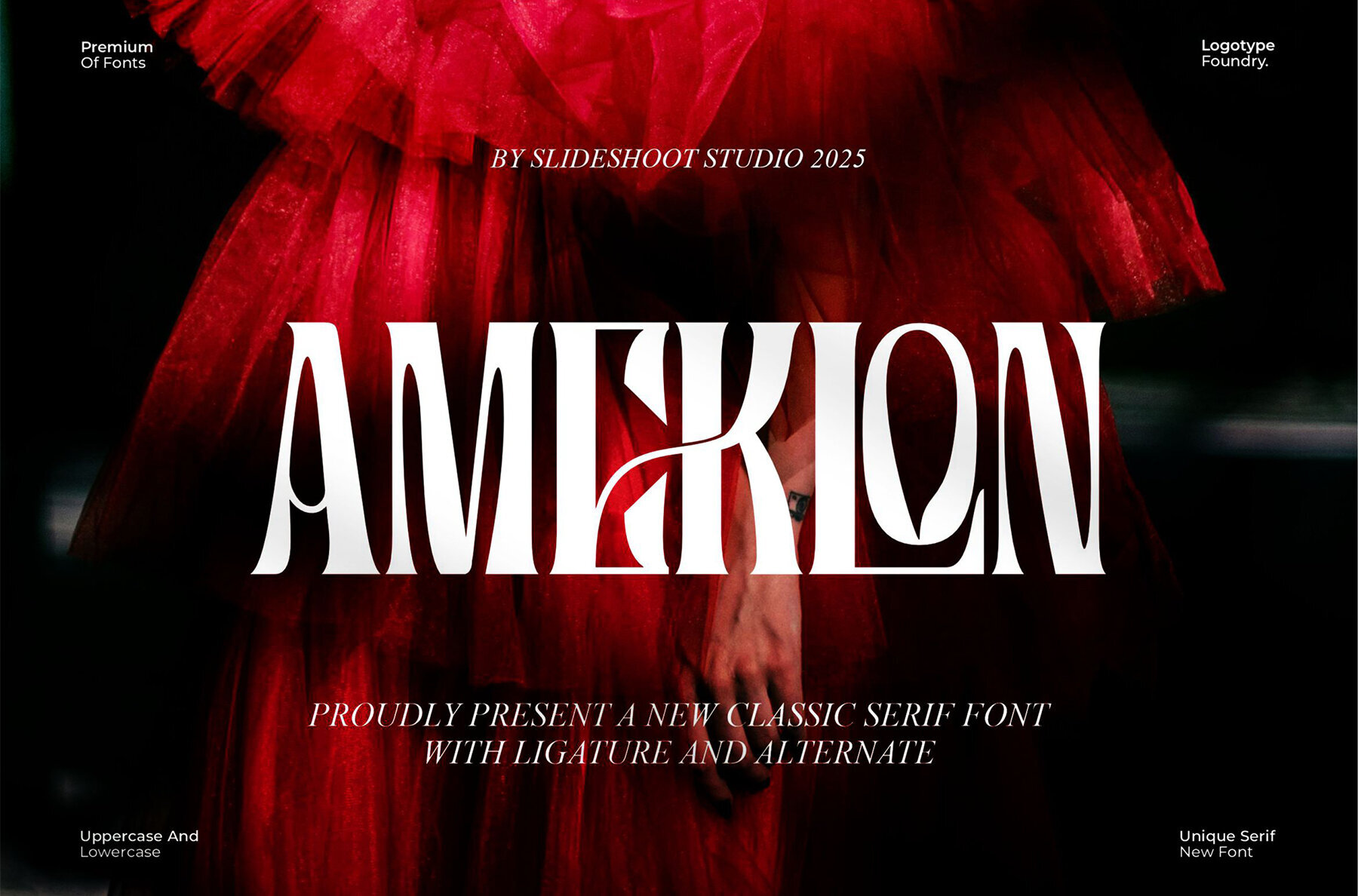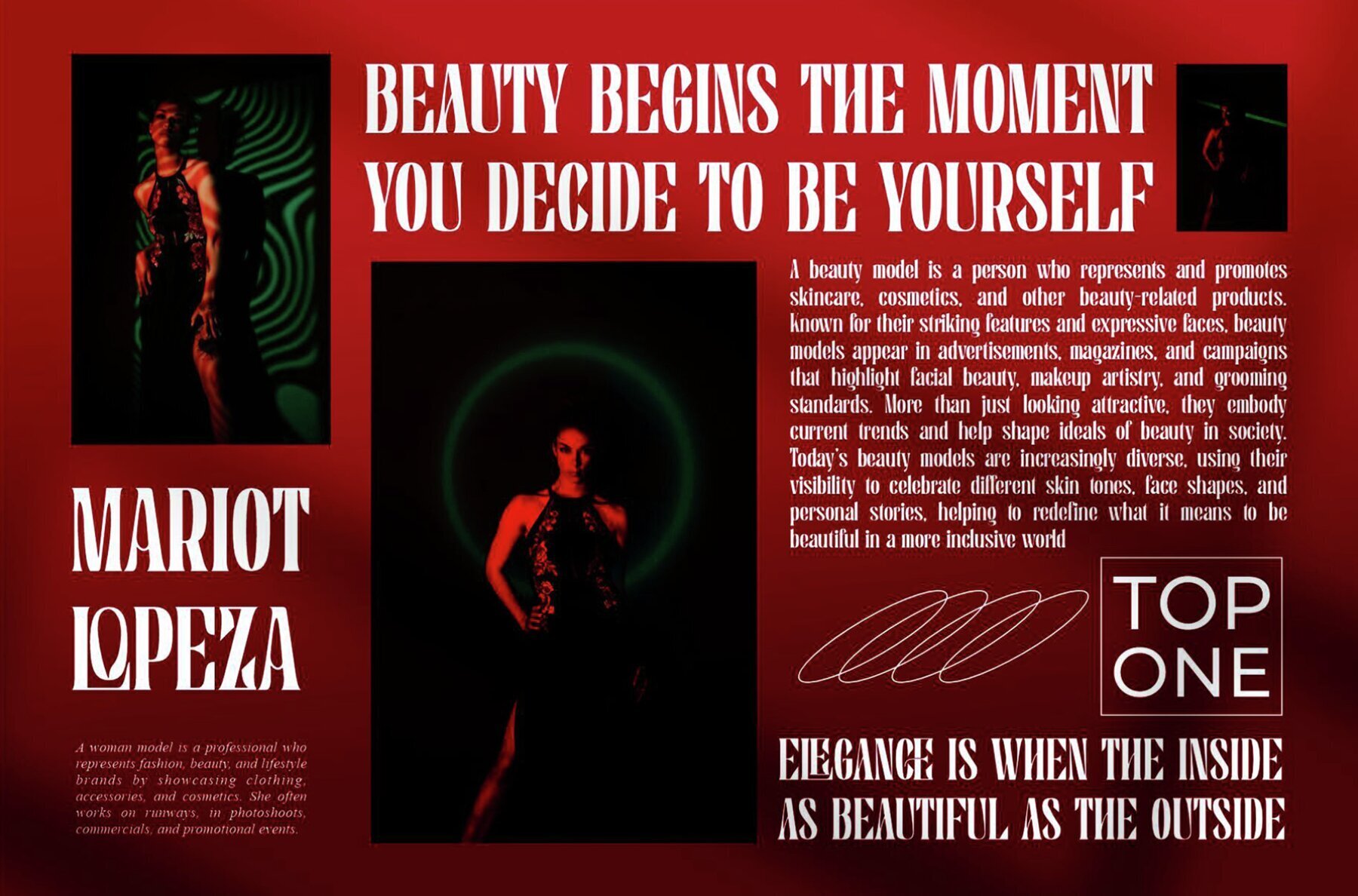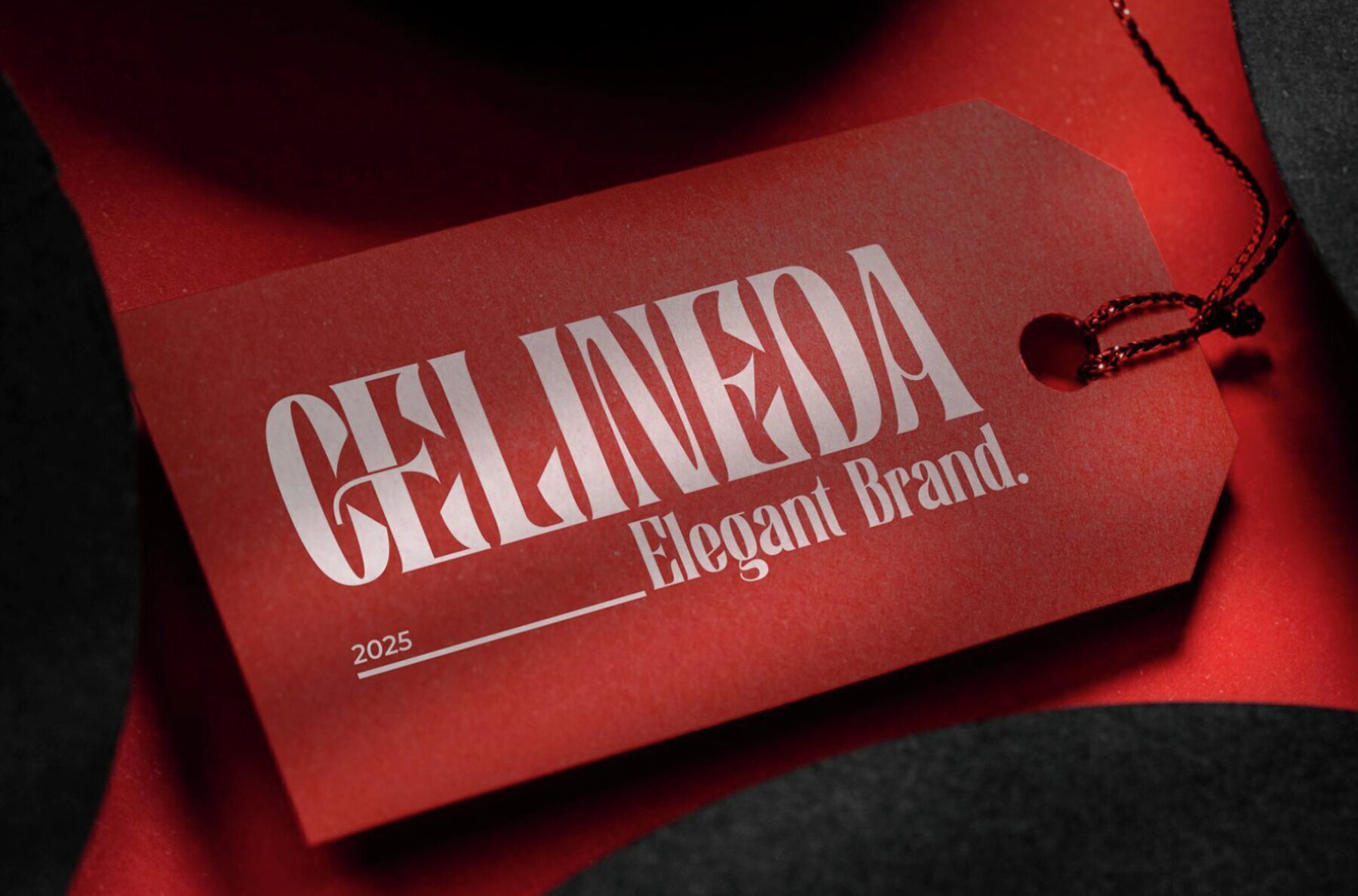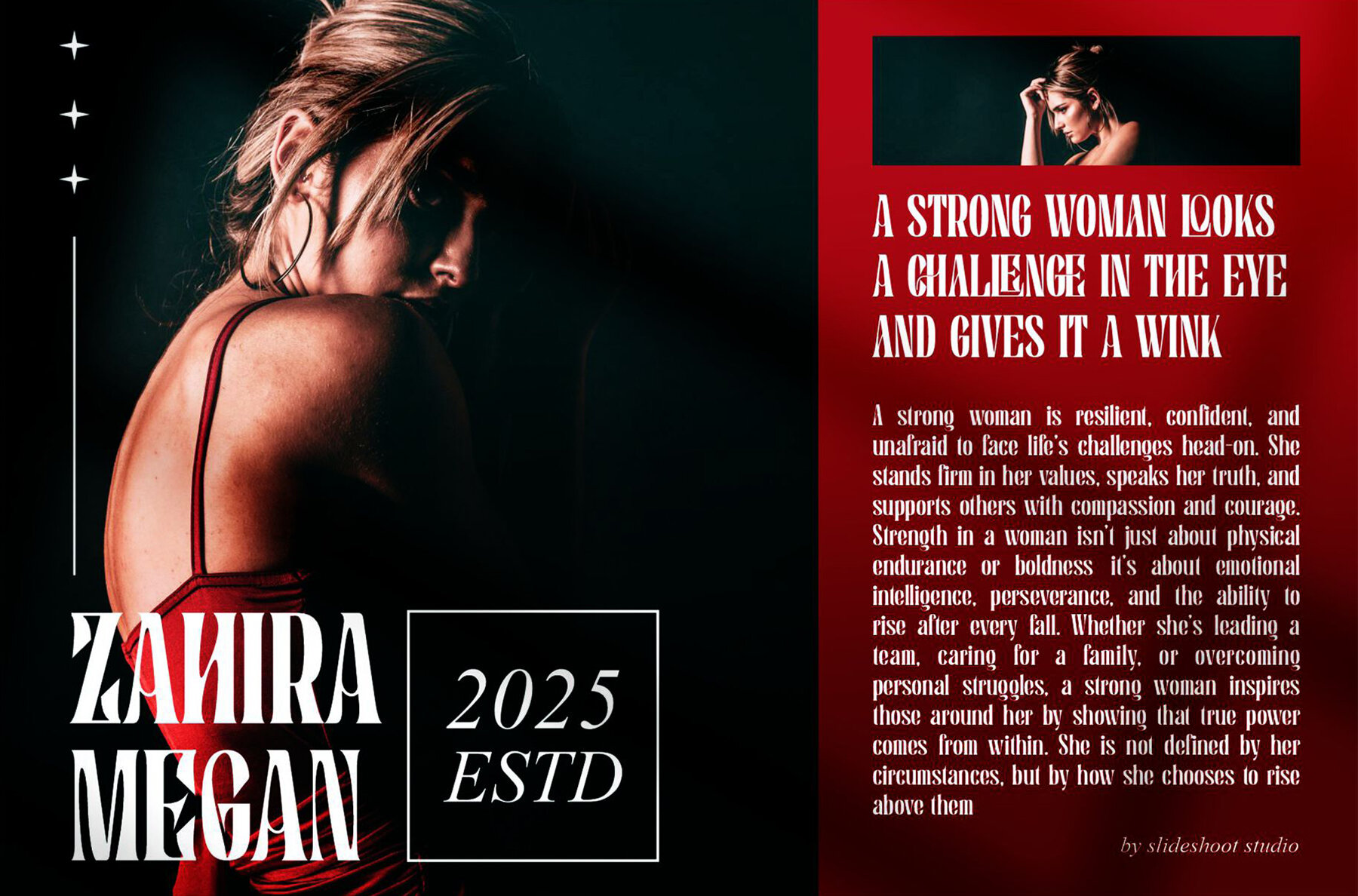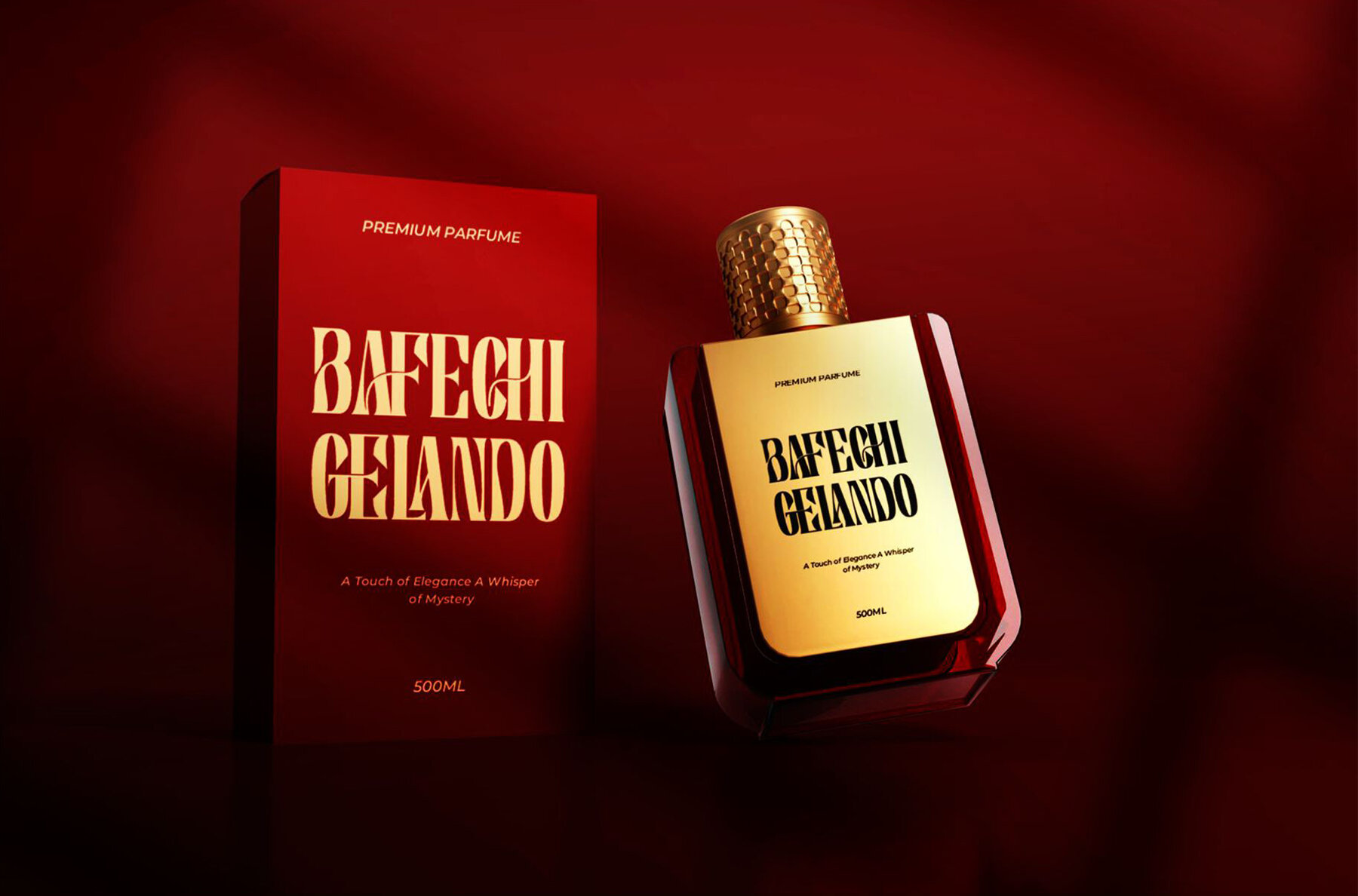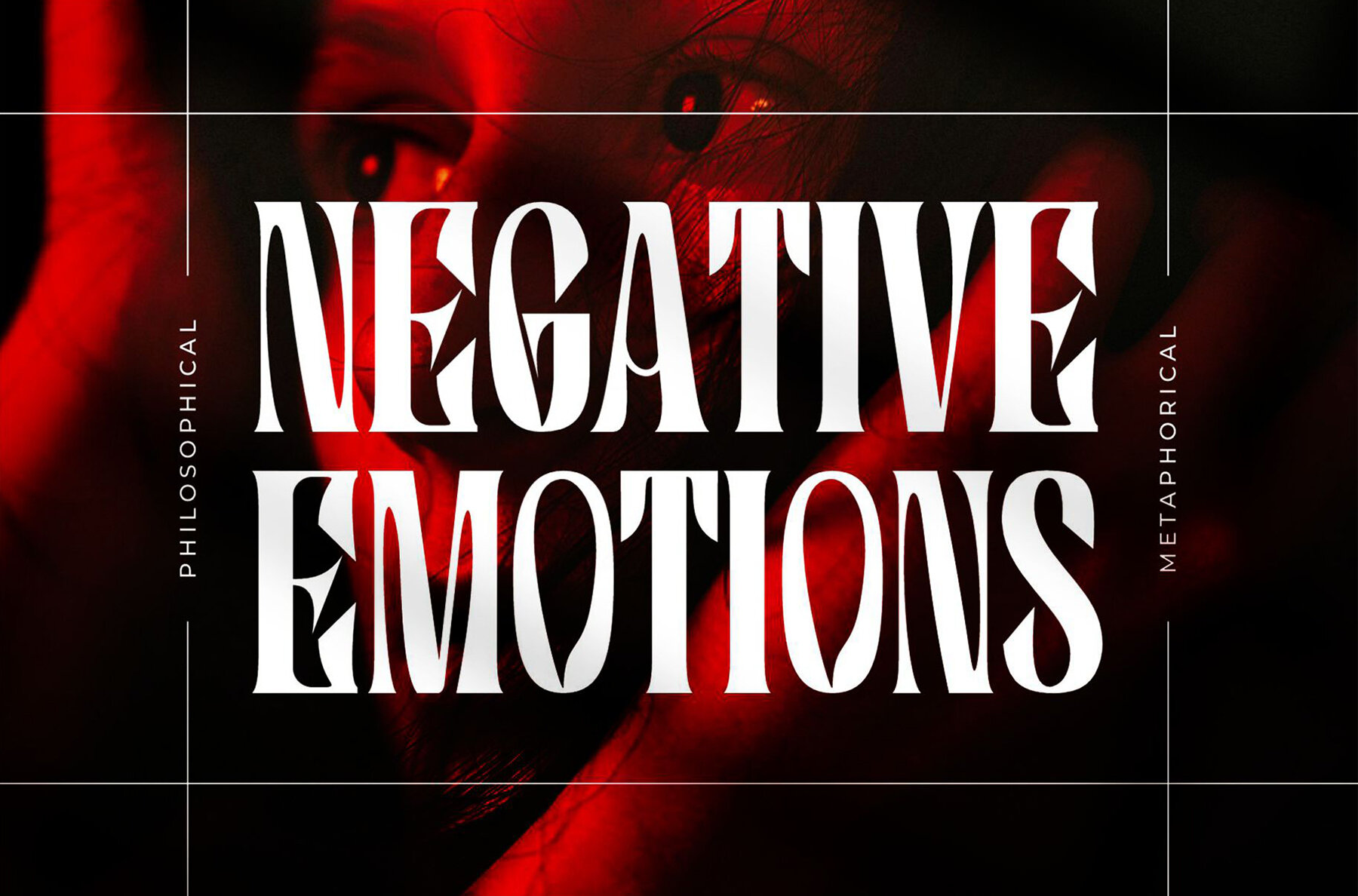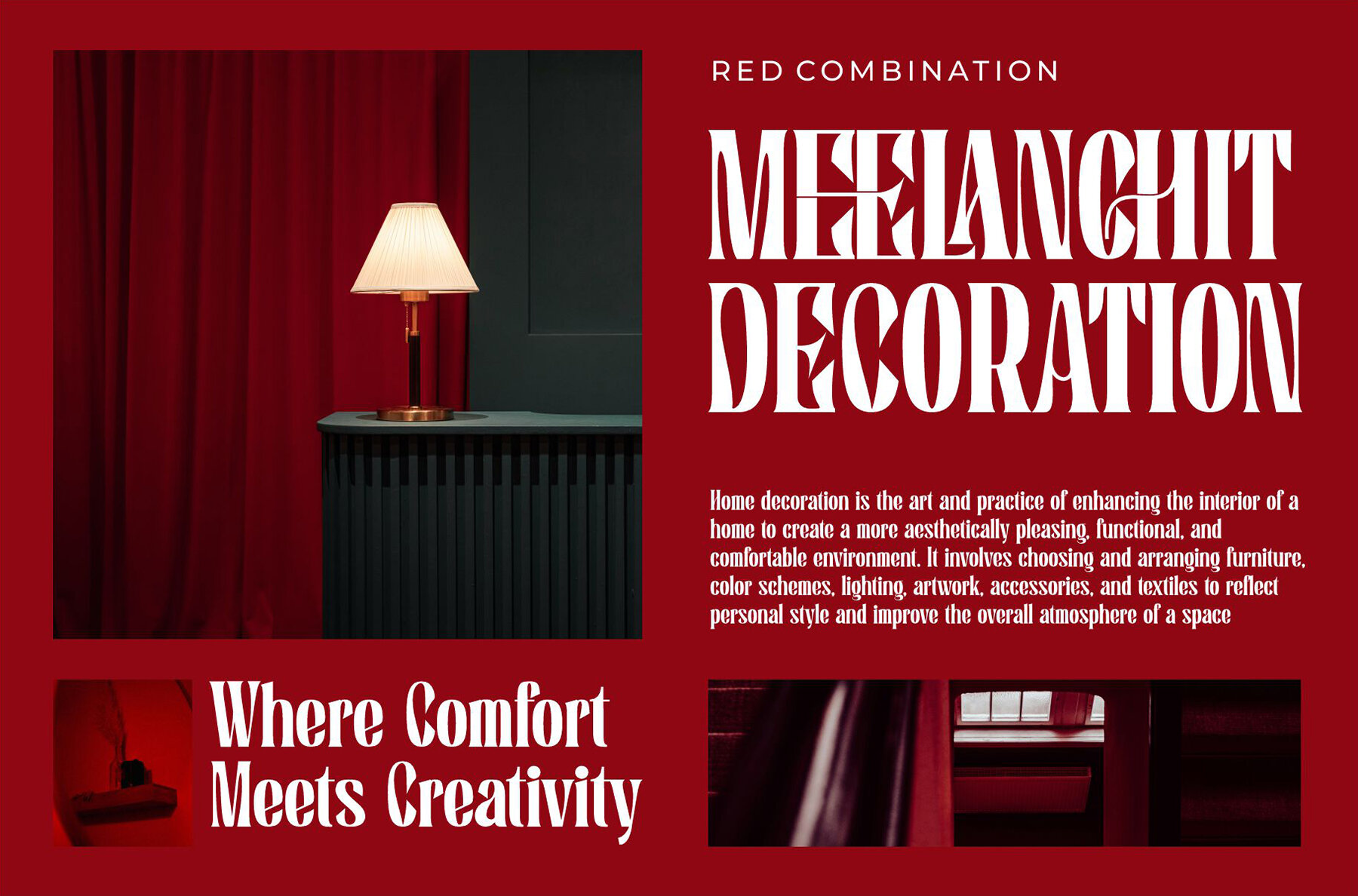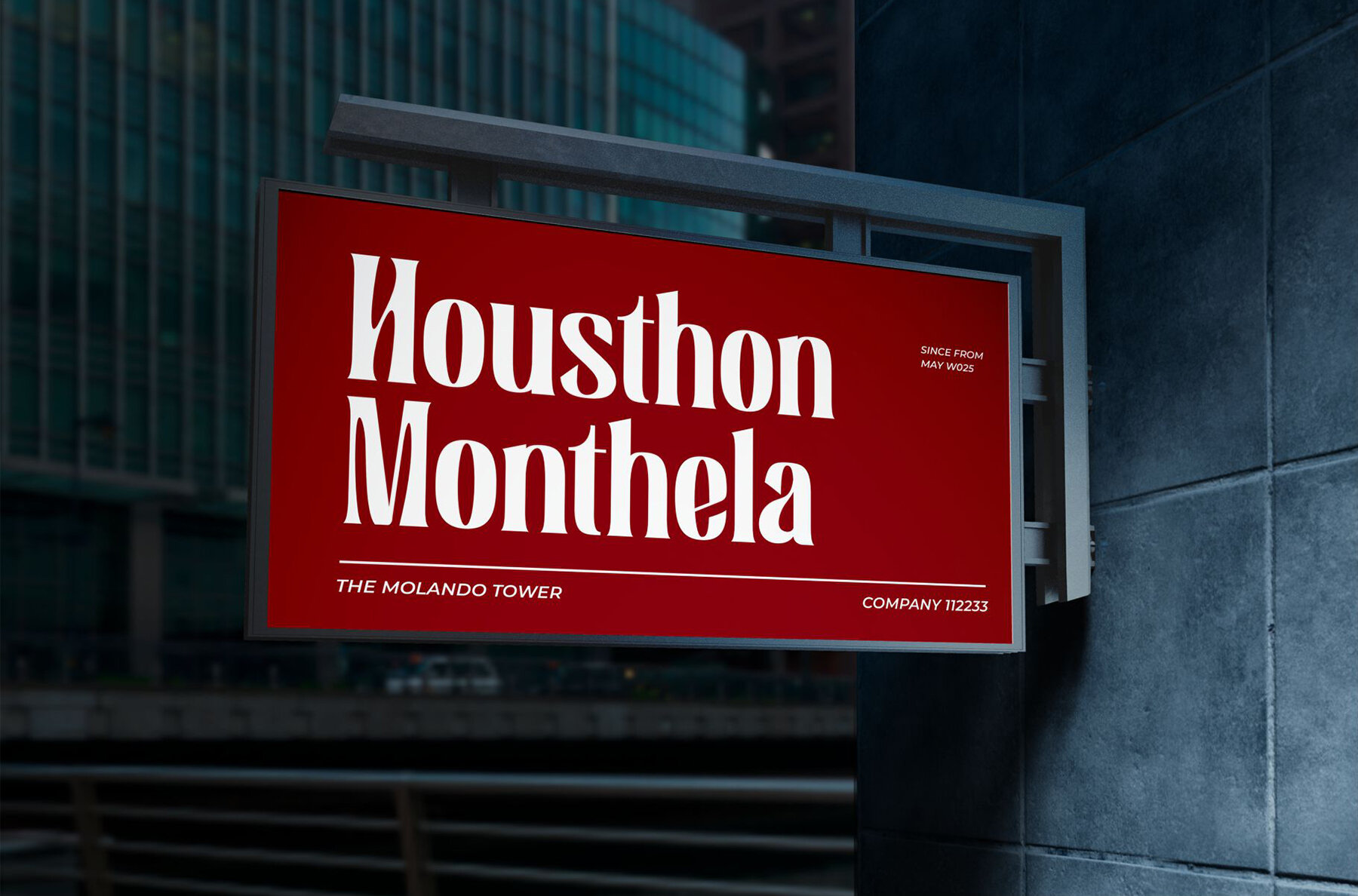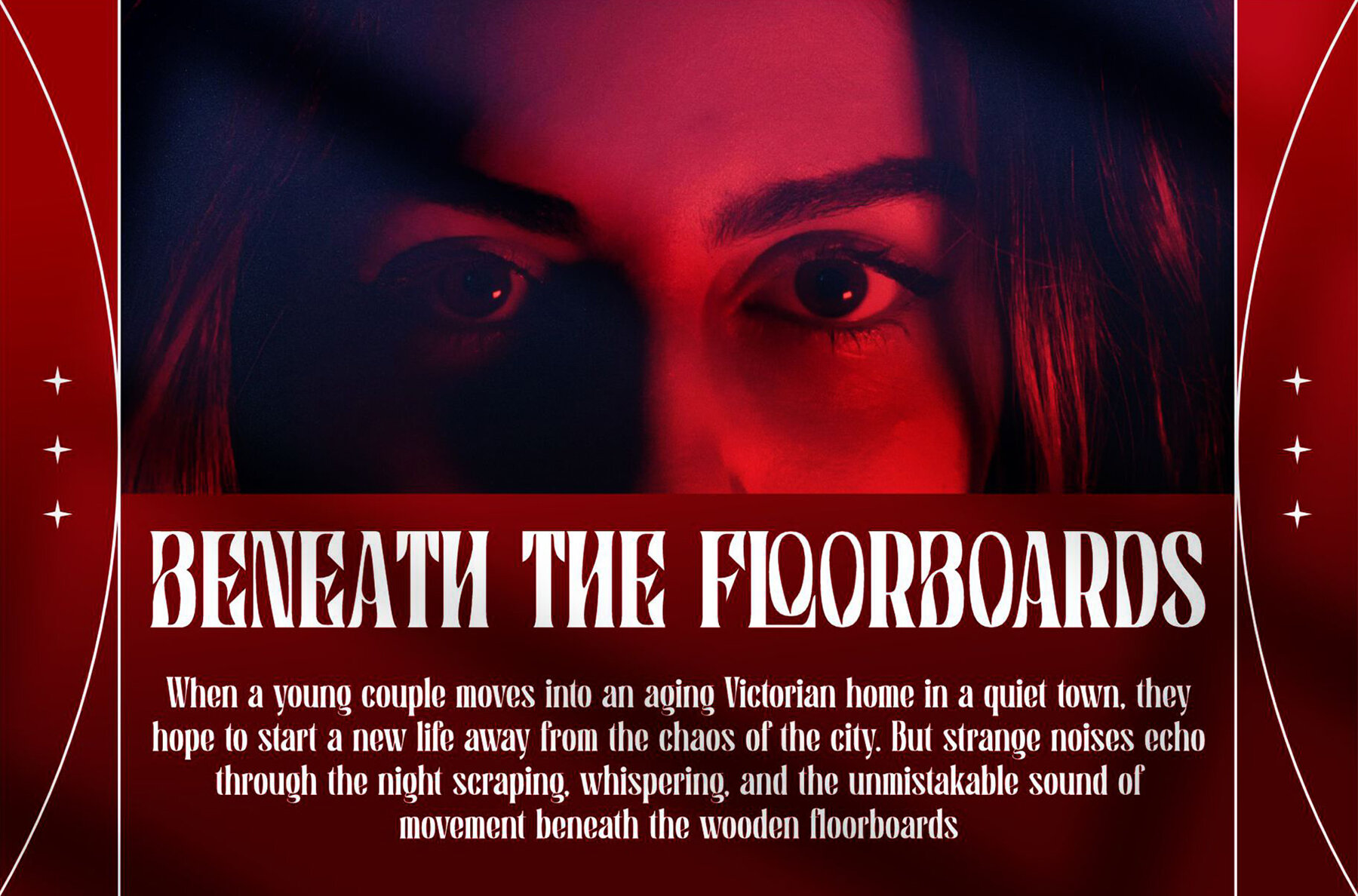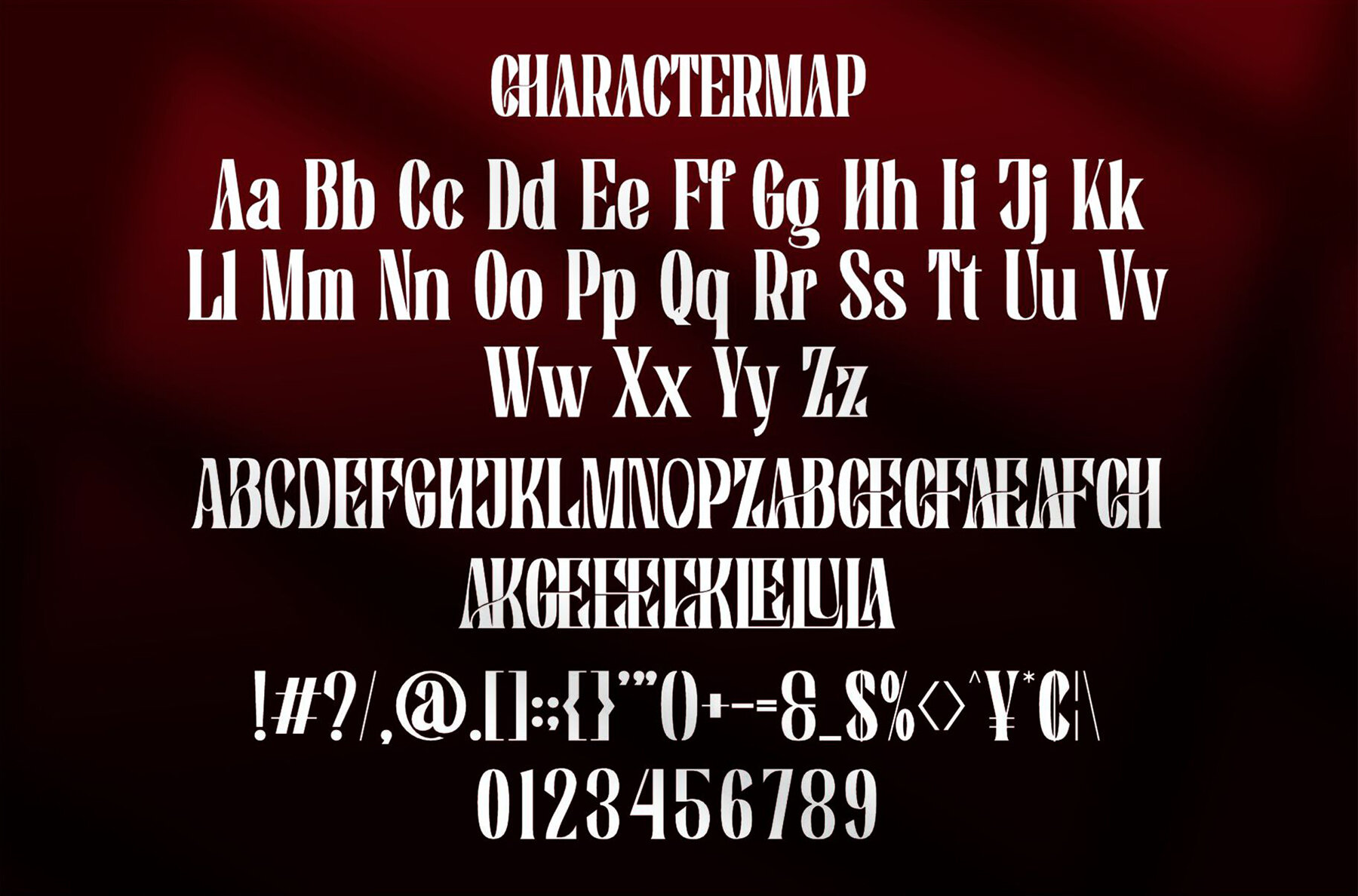
Ameklon Font
Ameklon
Ameklon is a classic serif font that embodies trendiness, elegance, and style. Its unique character makes it a perfect addition to any design project. Whether you're working on invitation cards, company logos, film titles, business cards, or book covers, Ameklon adds a sophisticated touch. Ideal for anyone looking to enhance the aesthetic of their brand or creative project.Ameklon Font